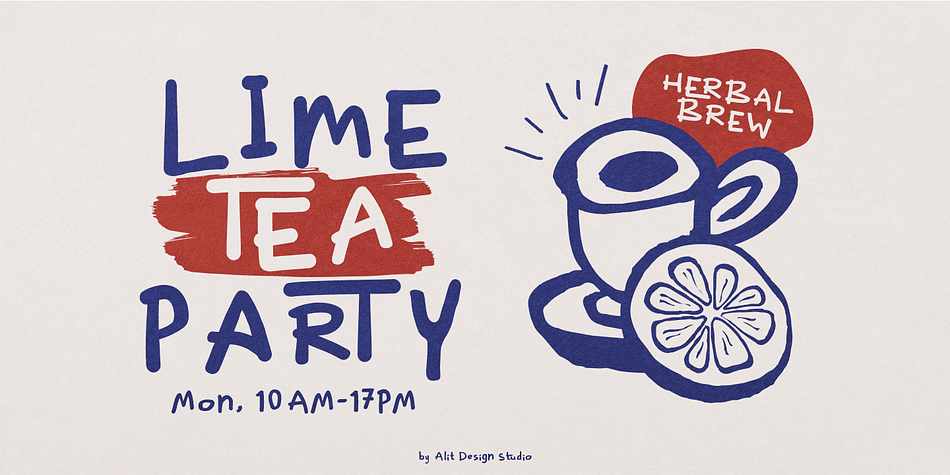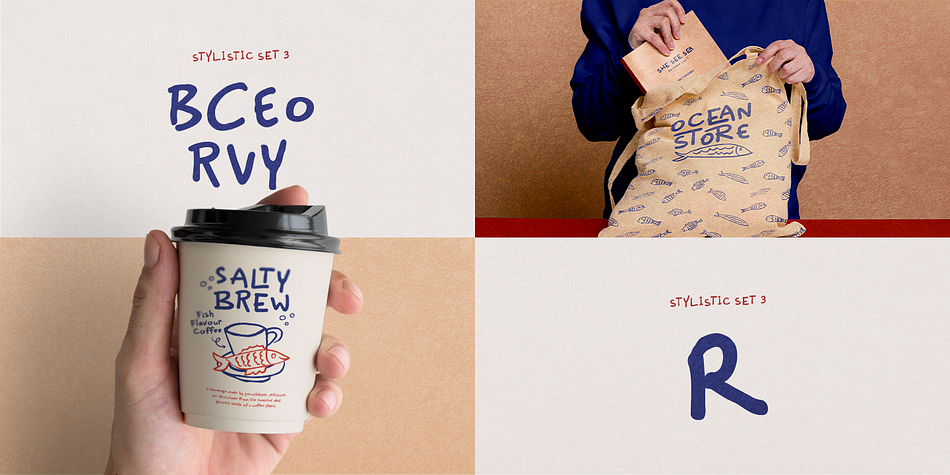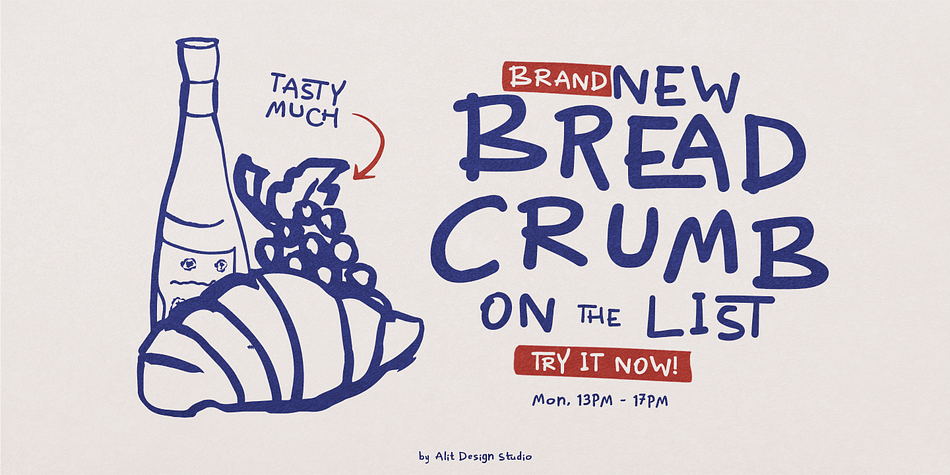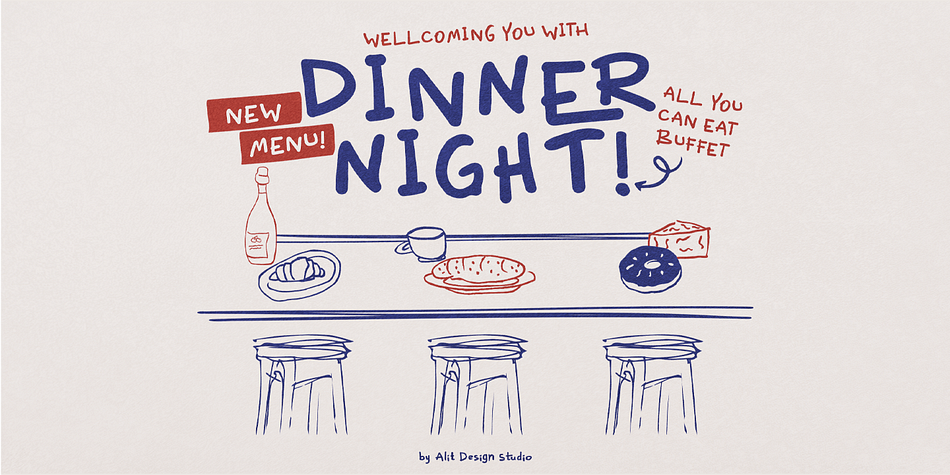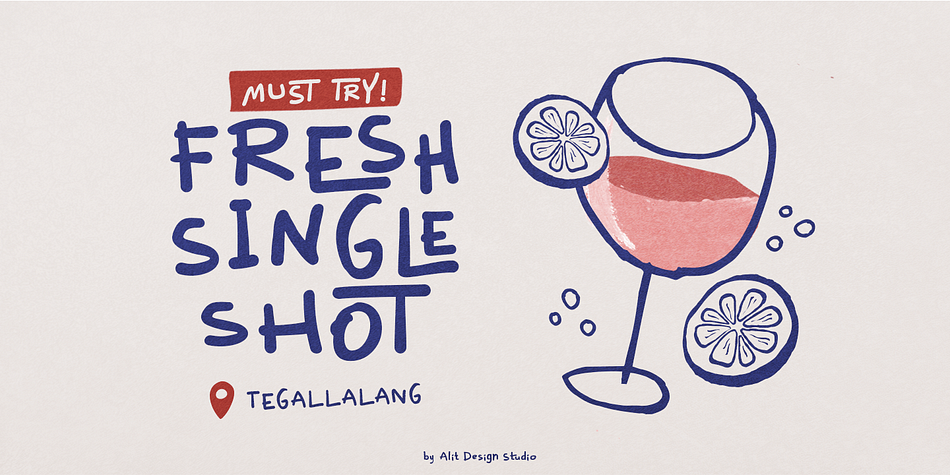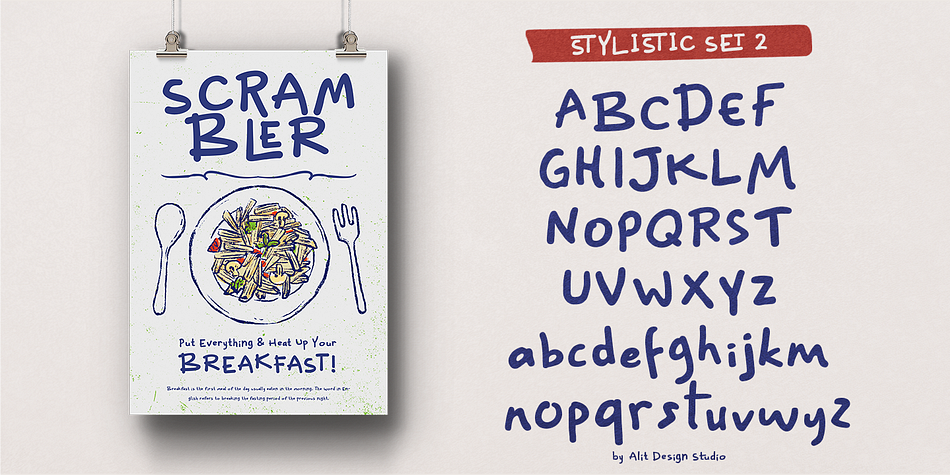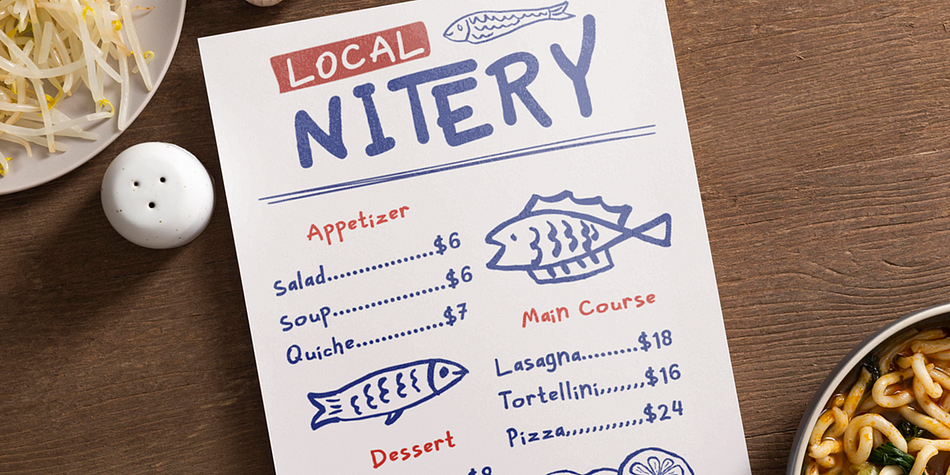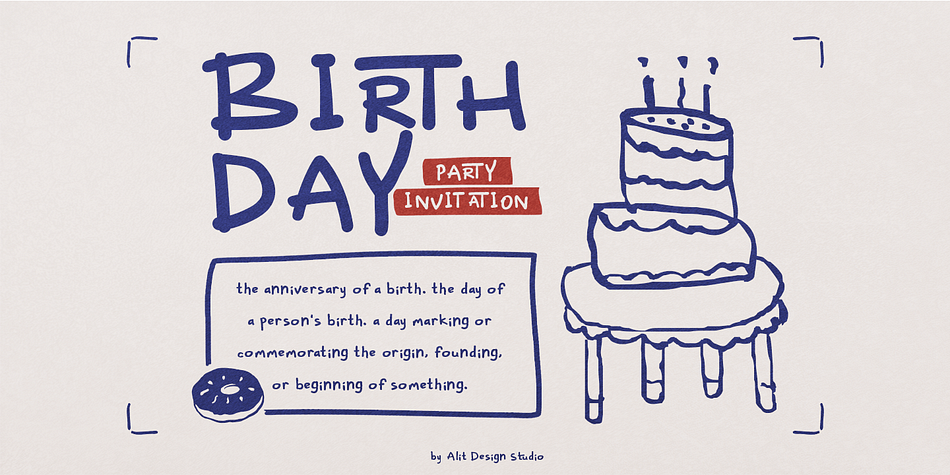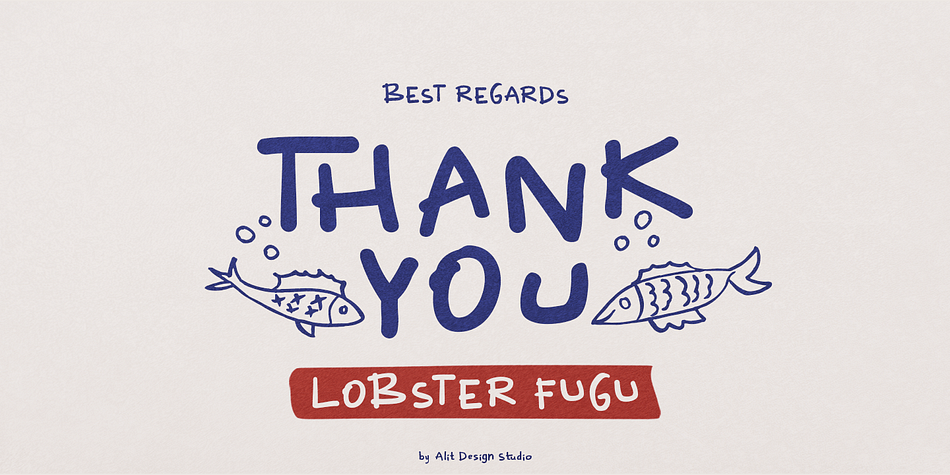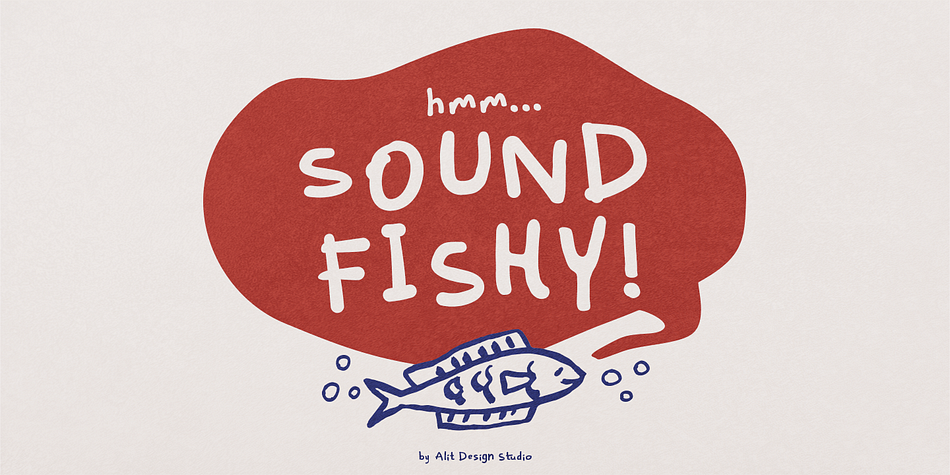
Lobster Fugu
Designed by Alit Suarnegara, Lobster Fugu is a hand drawn and dingbat font family. This typeface has two styles and was published by Alit Design.
“Lobster Fugu” is a charming handwritten font that captures the whimsical essence of a child’s writing while maintaining a distinct and engaging style. Each letter is playfully crafted, featuring uneven lines and irregular shapes that mimic the spontaneity and innocence of youthful penmanship. Despite its carefree appearance, “Lobster Fugu” possesses a unique character, with subtle design elements that add a layer of sophistication and originality. This font is perfect for projects requiring a touch of creativity and fun, such as children’s books, playful branding, and casual invitations. Its delightful quirks and lively strokes make “Lobster Fugu” a standout choice for anyone looking to convey a sense of joy and individuality in their typography.